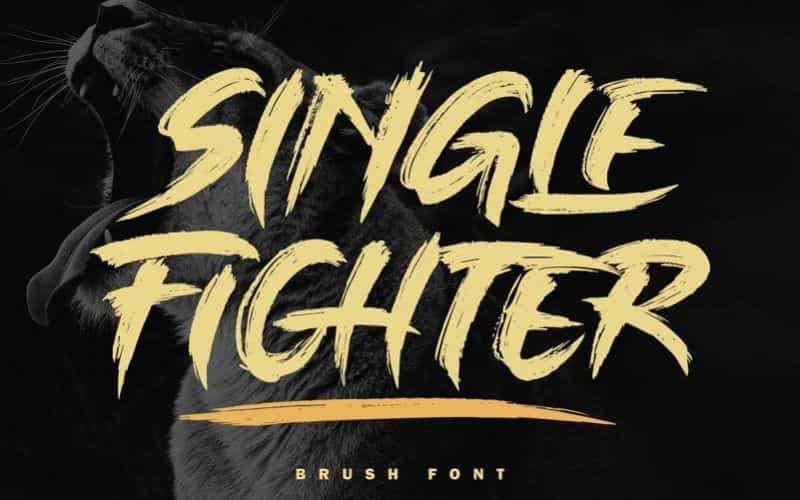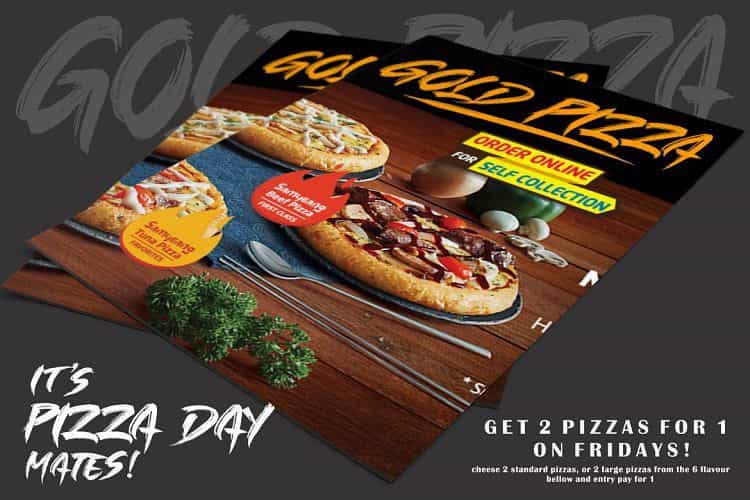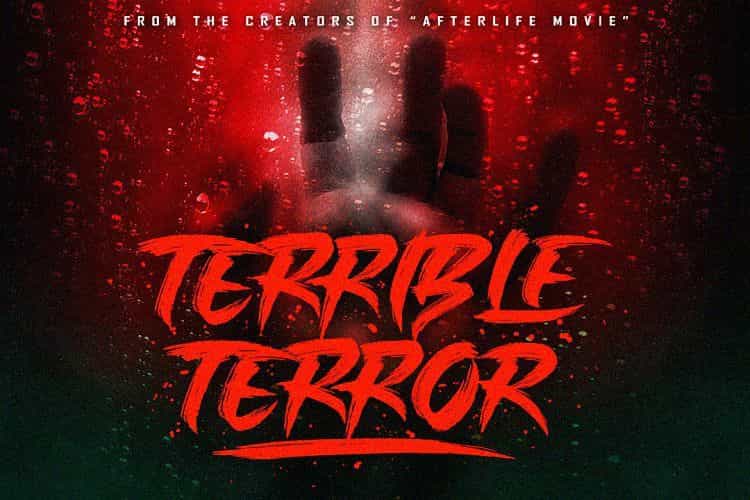
SINGLE FIGHTER is a very high-powered, street-smart brush font that is full of energy. By paying a lot of attention to the quick strokes and sharp details, SINGLE FIGHTER will definitely be a loud & fast-paced message and this is perfect for logos, apparel, quotes, product packaging, or anything that needs a typographic turbo-boost.